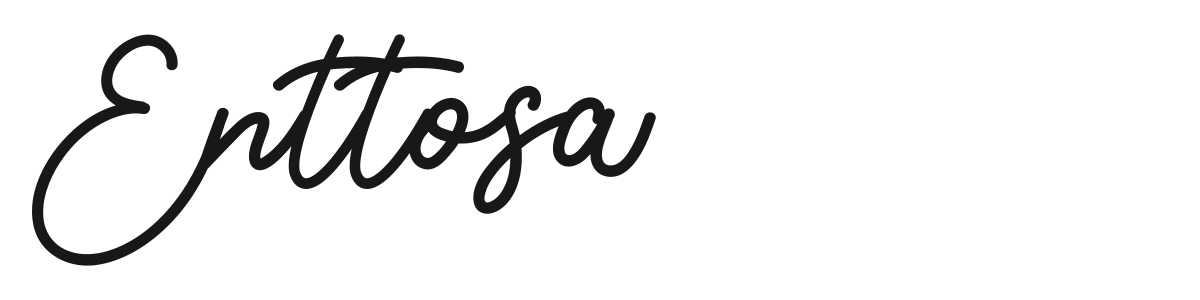
Enttosa
Enttosa is a casual connected script with a natural, ink-pen feel and smooth flowing rhythm. The loops, swashes, and lively baseline motion give it an authentic handwritten character that sits between everyday handwriting and polished calligraphy. It works well at large sizes for logos, packaging, and social content where warmth and personality matter.